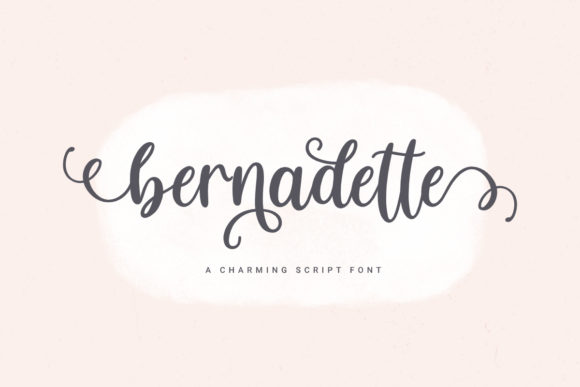
In a world saturated with uniformity, where digital spaces often blend into a monotonous blur, Bernadette Font stands out as a beacon of individuality and charm. Its elegant script dances across the screen, evoking a sense of nostalgia and timeless beauty. It's the perfect font for those seeking to infuse their digital creations with a touch of personality and sophistication.
Bernadette's delicate strokes and flowing curves impart a sense of grace and femininity to your designs. Its carefully crafted characters exude charm, inviting readers to linger and savor the words on the page. Whether you're creating a captivating digital magazine, crafting heartfelt invitations, or designing social media posts that capture attention, Bernadette Font is your perfect companion.
With Bernadette Font, you can effortlessly elevate your digital presence, transforming your creations into works of art. Its versatility extends beyond the boundaries of digital design, making it an excellent choice for branding, logos, and packaging. Unleash your creativity and let Bernadette's enchanting touch add a touch of magic to your projects.
Bernadette Font is more than just a font; it's an expression of your unique style. It's a tool that empowers you to create designs that resonate with your audience, leaving a lasting impression that sets you apart from the crowd. Embrace the beauty of Bernadette and watch as your digital creations blossom into captivating experiences that enchant and inspire.